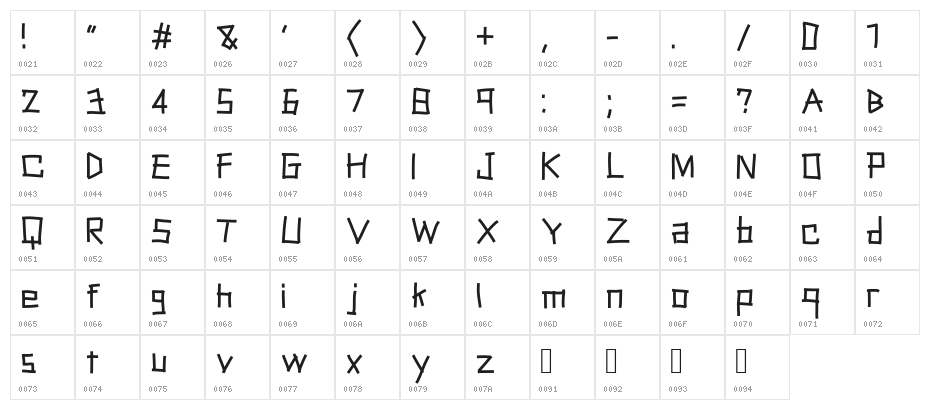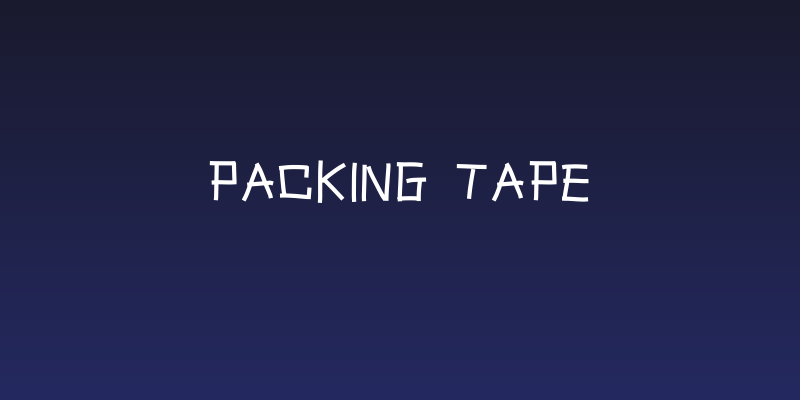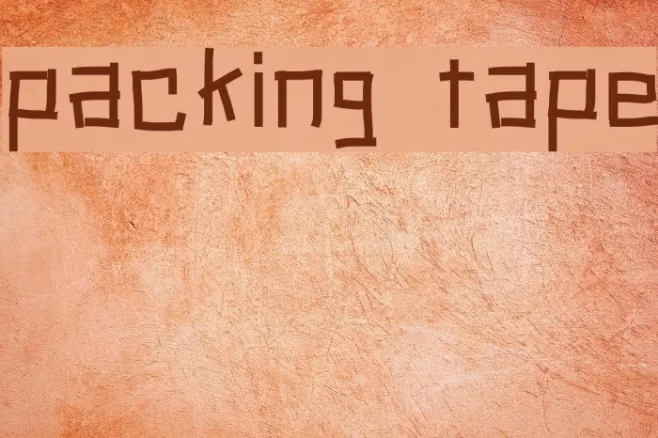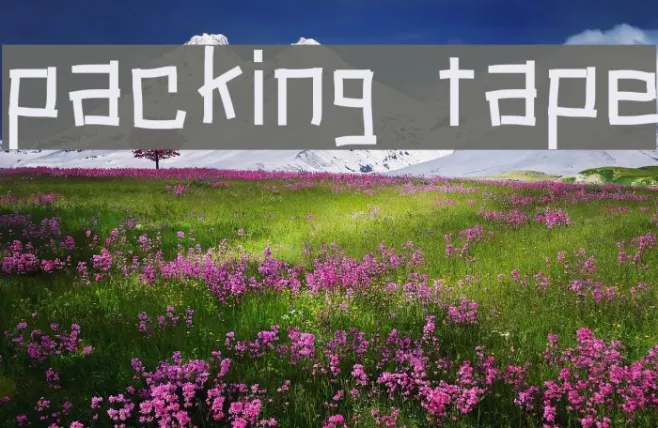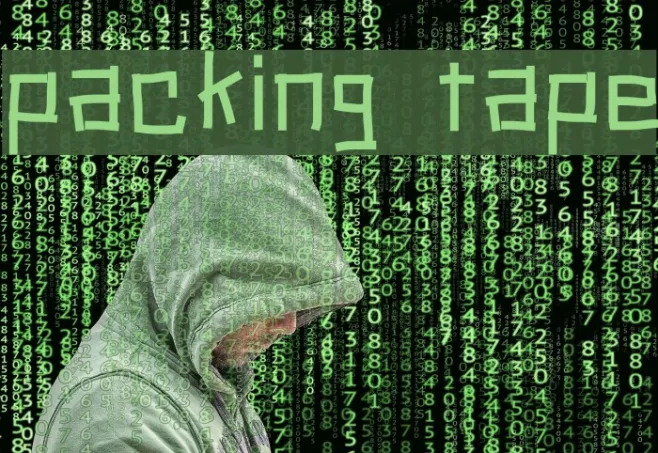
packing tape Font
packing tape Description
This font features a bold, angular design with a hand-drawn aesthetic, reminiscent of letters crafted with tape. The characters are constructed with straight lines and sharp angles, giving them a rugged, industrial feel. Uppercase and lowercase letters maintain a consistent style, with unique variations that add to the font's quirky charm. The numerals and special characters follow the same design principles, ensuring a cohesive look across all glyphs. This font's distinctive style makes it stand out, ideal for projects that require a bold, unconventional typeface.
| Overall Style | Modern, Industrial |
| Proposed Projects | Perfect for posters, album covers, branding for edgy or creative industries, and any project needing a standout, unconventional typeface. |